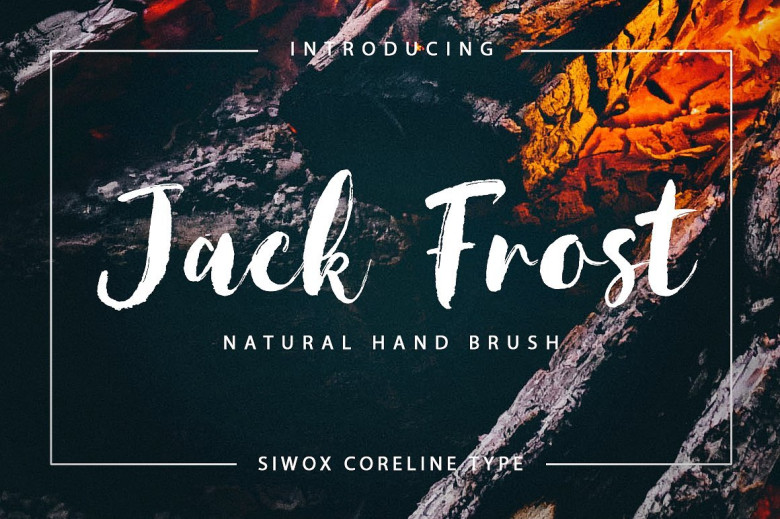
Jack Frost Brush Font
Introducing Jack Frost Font. JACK FROST is a handmade style font with stunning characters. Made with a brush and high quality water-based ink. Ideal for name tag, handwritten quotes, product packaging, merchandise, social media, greeting cards, etc. It contains a full set of lower & uppercase letters, a large range of punctuation, numerals.